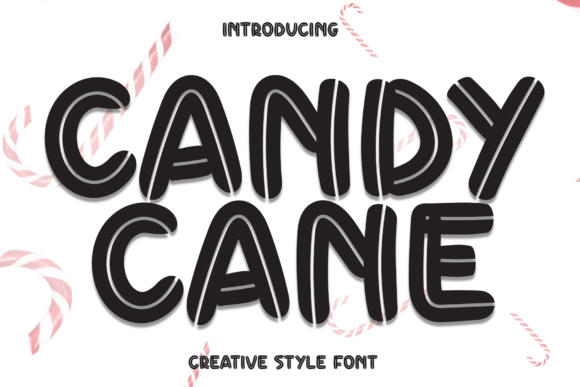
The Sweet Charm of Candy Cane Font: A Designer’s Delight
I’ll never forget the time I was working on a wedding invitation project, and my client asked for a font that would make their special day feel like a fairy tale. I scoured the internet, trying out font after font, but nothing seemed quite right. That was until I stumbled upon the Candy Cane Font. With its playful, handwritten charm, it was love at first sight! ✨ In this article, I’ll share my experience with this delightful font, its features, and how to make the most of it in your design projects.
Here’s what makes Candy Cane Font a standout in my book:
• ✅ Playful and whimsical: This font is perfect for adding a touch of fun and personality to your designs.
• ✅ Easy to read: Despite its playful nature, Candy Cane Font is surprisingly legible, making it suitable for longer texts.
• ✅ Versatile: From wedding invitations to social media graphics, this font can adapt to various design contexts.
• ✨ Beautifully crafted: The attention to detail in this font is impressive, with cute and fun nuances that make it a joy to use.
Now, no font is perfect, and Candy Cane Font has a few minor quirks:
• ⚠️ Limited use in formal contexts: This font is best suited for creative, playful projects. It might not be the best fit for more formal or corporate designs.
• 🤔 Some characters may require manual kerning: While the font is generally well-spaced, you might need to adjust the kerning for certain character combinations.
The Story Behind Candy Cane Font
Candy Cane Font was designed with the intention of capturing the magic of childhood wonder. Imagine a designer, sitting by a cozy fireplace, surrounded by candy canes and twinkling lights, pouring their heart into creating a font that would bring joy to others. That’s the kind of love and care that went into crafting Candy Cane Font.
What makes Candy Cane Font special? Candy Cane Font is special because of its unique blend of playfulness and legibility, making it perfect for a wide range of design projects.
In conclusion, Candy Cane Font is a delightful addition to any designer’s toolkit. Its playful charm, versatility, and ease of use make it an excellent choice for a wide range of projects. Whether you’re designing wedding invitations, social media graphics, or simply want to add some whimsy to your creations, Candy Cane Font is sure to bring a smile to your face and a touch of magic to your designs.